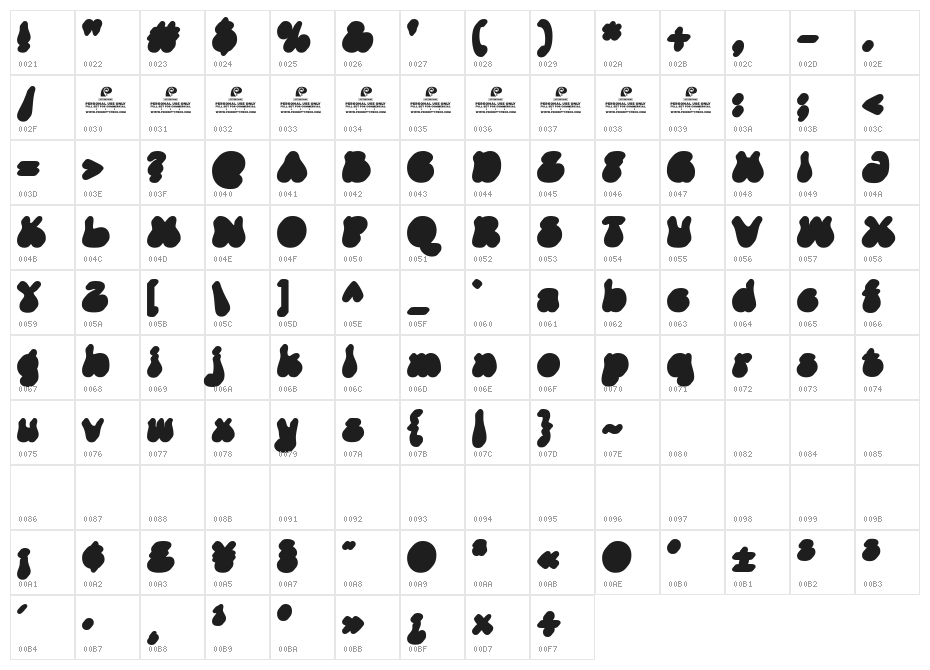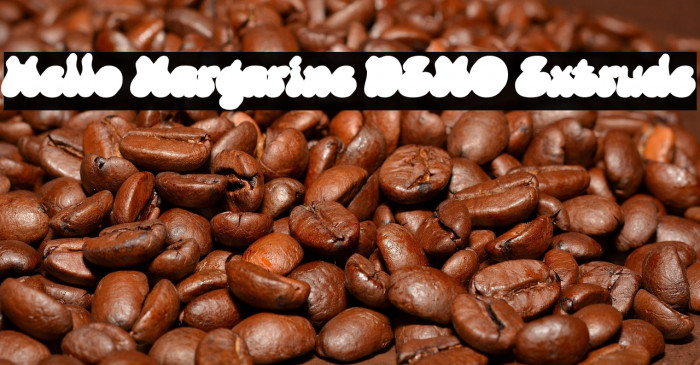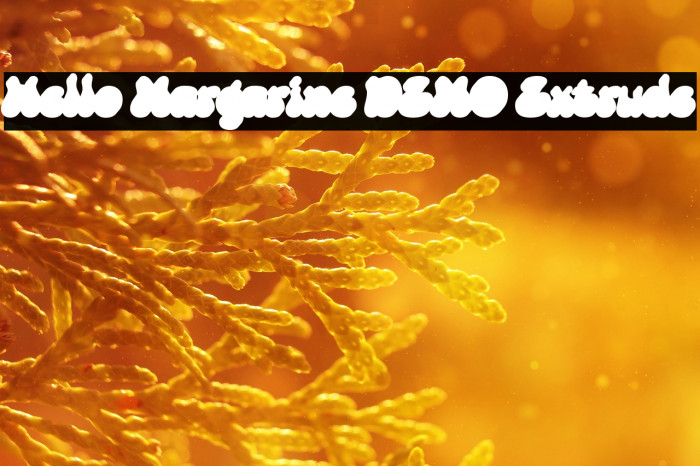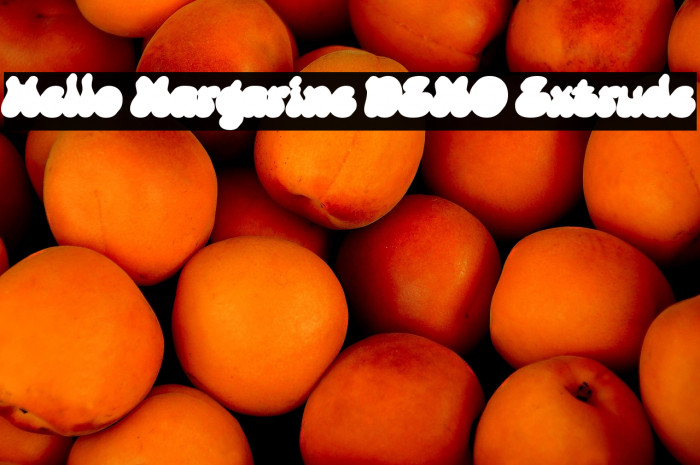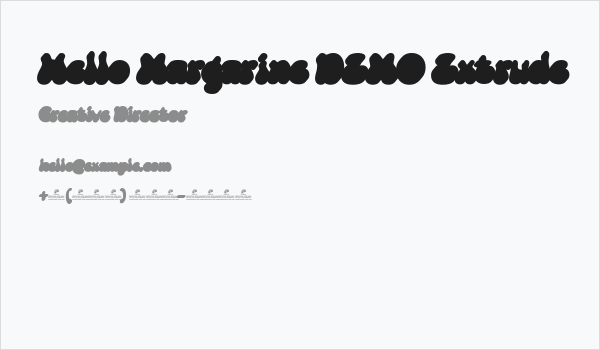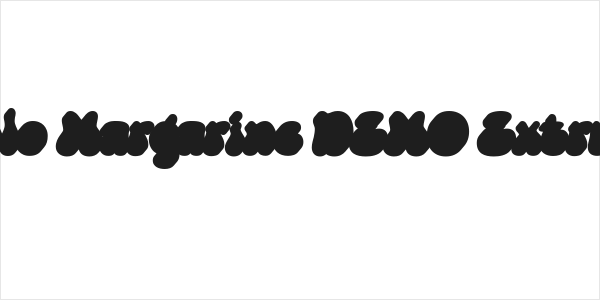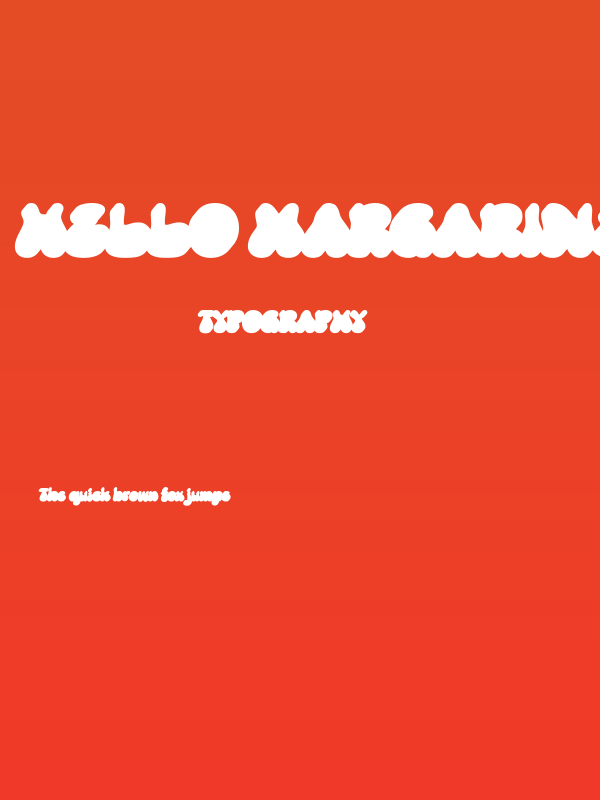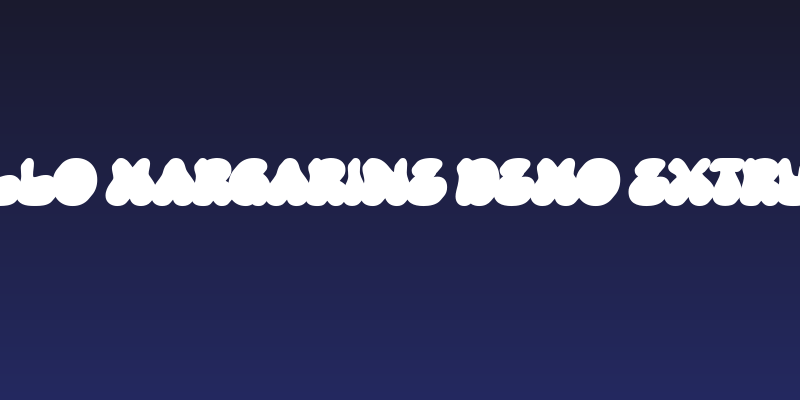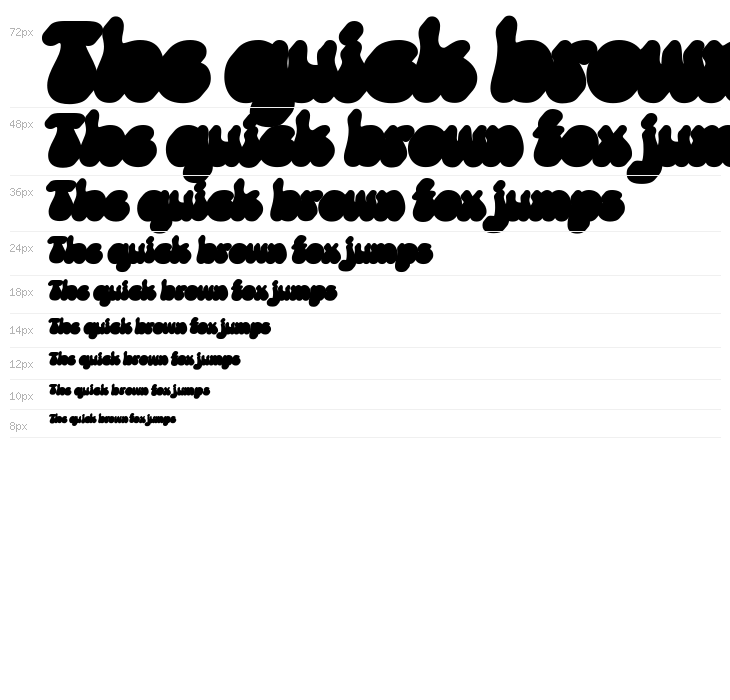
Hello Margarine DEMO Extrude Font
Hello Margarine DEMO Extrude Description
This font features a bold, playful style with thick, rounded shapes that give it a bubbly and fun appearance. The characters are heavily weighted, creating a strong visual impact. The font's exaggerated curves and soft edges contribute to its whimsical and informal feel. It's designed to stand out, making it ideal for creative and eye-catching designs. The uniformity in stroke width across all characters provides a cohesive look, while the rounded forms add a touch of friendliness and approachability.